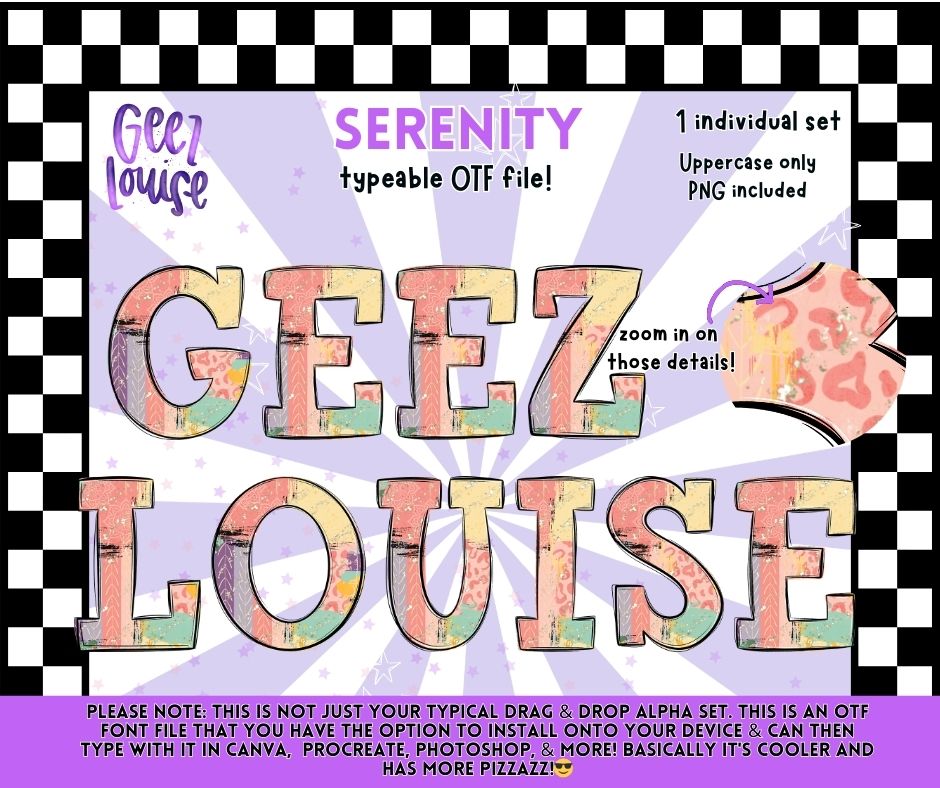
Serenity OTF Font & PNG Alpha Set | Typeable Alphabet | Uppercase Letters | Digital Download
Add soft, colorful style lettering to your designs with this typeable OTF alpha set featuring a unique textured pastel look.
• Uppercase letters only